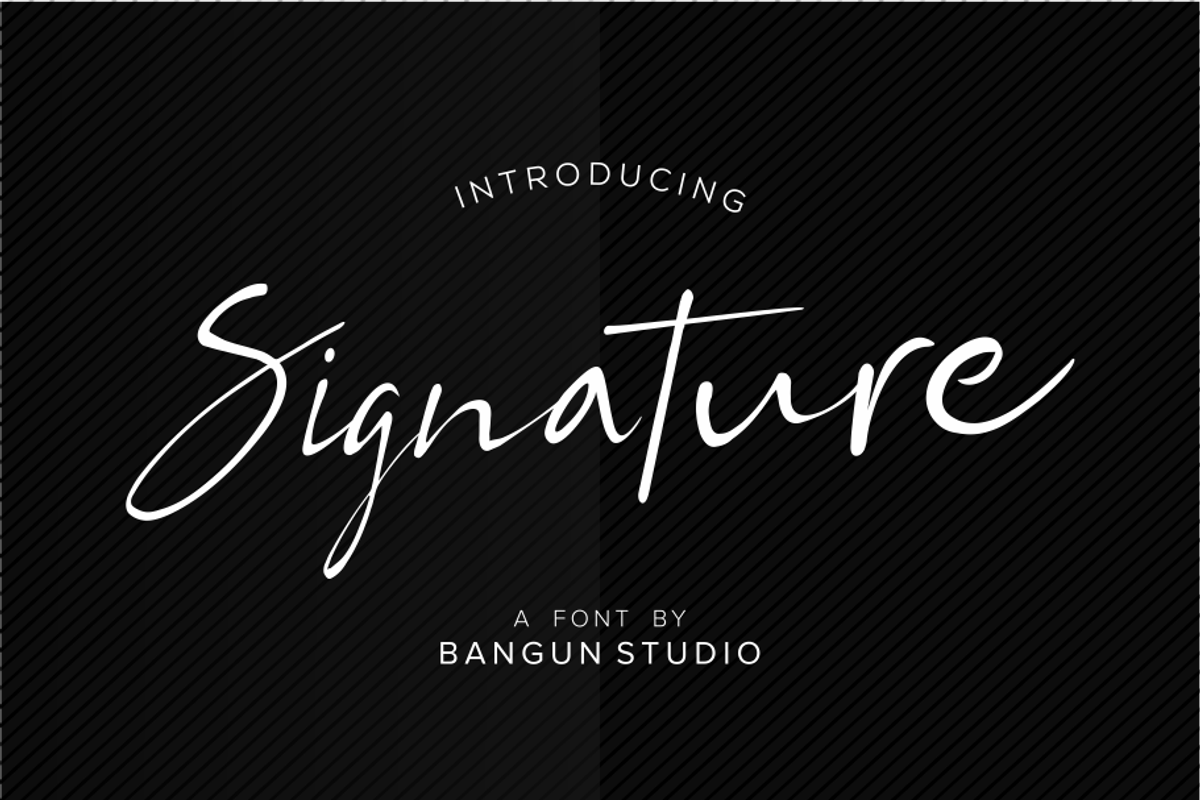
Signature Font Free Download is a stylish and elegant script typeface that mimics the look of a handwritten signature. Perfect for branding, logos, invitations, personal branding, social media graphics, and more, this font captures a sense of sophistication and authenticity.
Whether you're designing a chic logo, a personal letterhead, or creating an elegant wedding invitation, Signature adds a personal touch to your typography with its smooth curves and flowing strokes.
The font includes uppercase and lowercase letters, numerals, punctuation, and multilingual support, providing versatility for a wide range of design needs. It works beautifully in both digital and print formats.